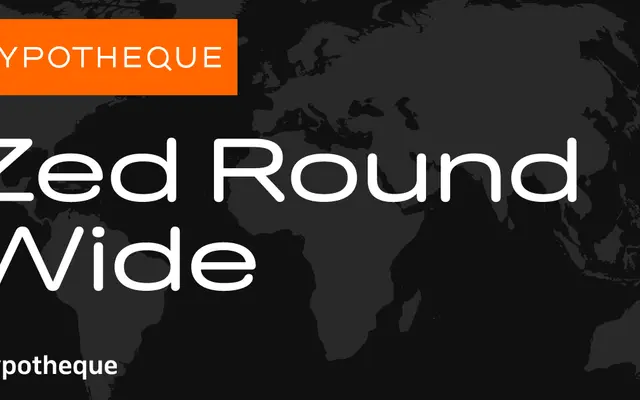
Zed Round Wide specimen from Typotheque
The wide cut of Typotheque's rounded geometric display subfamily, part of an enormous modular system spanning nine widths, three subfamilies and up to twelve weights each.
Zed Round Wide sits at the broader end of the Zed Round subfamily, itself one arm of the Zed system which also includes Display, Text and Icons variants. Each style in the Round subfamily features softened, rounded terminals that distinguish it from the sharper Display cuts, while the Wide proportion pushes letterforms into open, spacious territory suited to headlines and branding at large sizes. Individual styles are named after world cities, running from Hairline through to Black, each available in upright, slanted and backslanted versions.
Zed Round Wide is part of a large geometric display system with rounded terminals, positioned at the wide end of a nine-width axis; its soft, circular stroke endings and geometric structure place it firmly in geometric display sans territory.